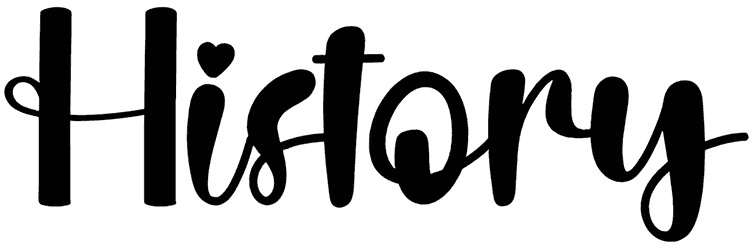
History Font
This time, your layout would appear more ravishing and beautiful with this distinct handwritten font. History has a modern, lovely, and natural style that can be harmonized with many happy designs. With an almost full backup of characters, this playful script font can be a superb choice for various items from postcards to apparel.